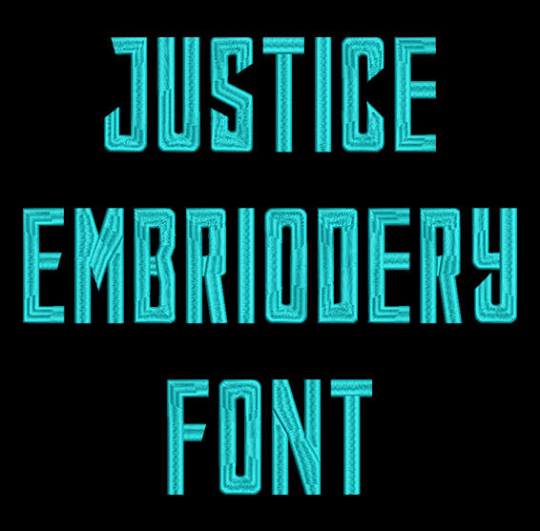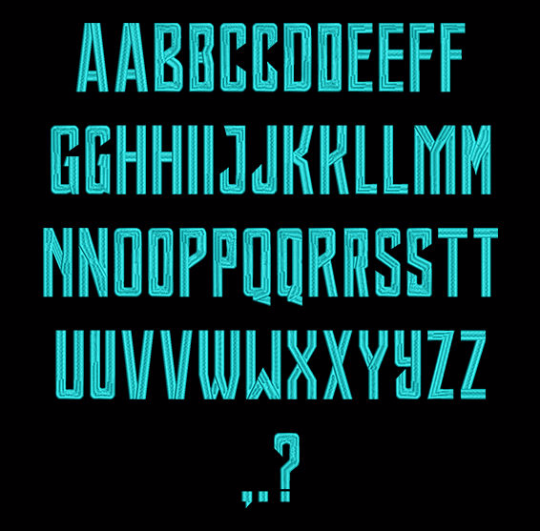
Title: Justice Machine Embroidery Font
This Justice font is perfect for personalizing clothes, bags, towels and linens!
This rockin' font would look amazing as a Monogram on Totes, School bags and purses!